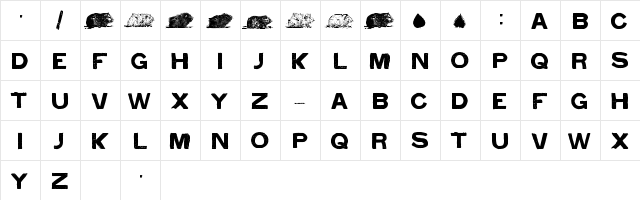
cacavia01 Regular
Design Context for cacavia01 Typeface
cacavia01 offers clean, dependable letterforms without strong stylistic allegiance, making it a practical choice for designers who need flexibility.
First published in 2009, this typeface is available in TrueType (TTF) format.
Pro Tip: Pair cacavia01 with a font of contrasting weight or personality to build a more expressive typographic hierarchy.